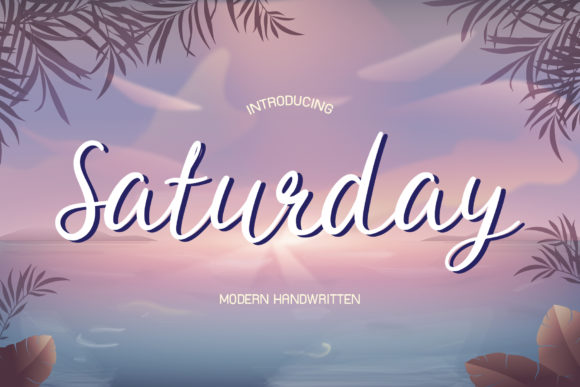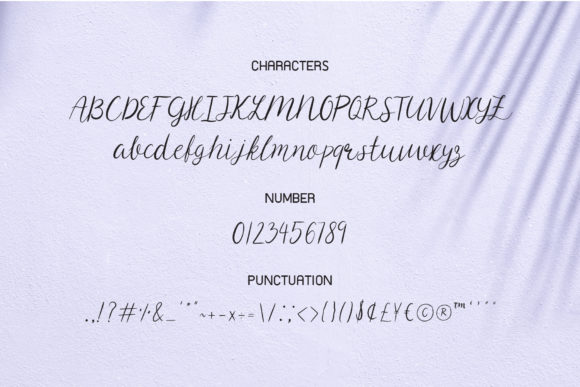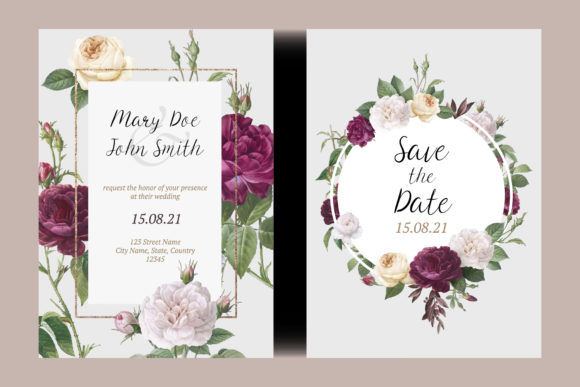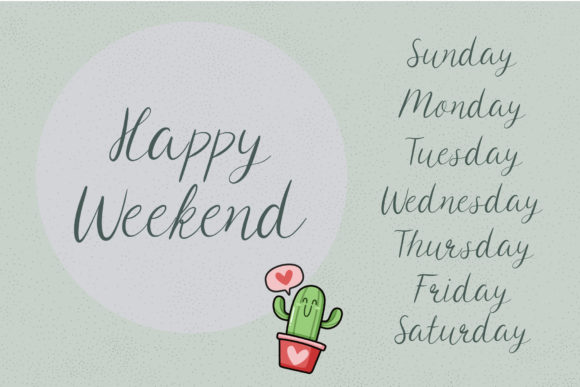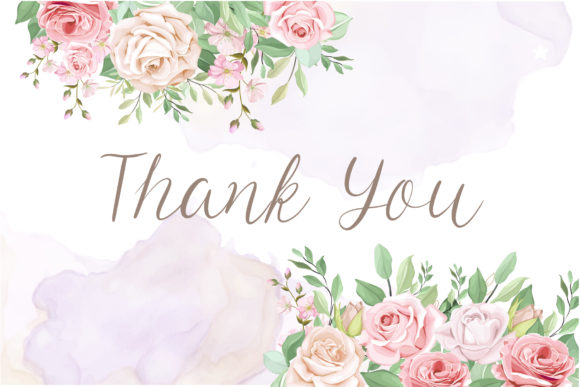
Saturday Font
About Saturday Font
Saturday is a modern and flowing handwritten font. It maintains its classy calligraphic influences while feeling contemporary and fresh. Fall in love with Saturday and bring your projects to the highest levels!